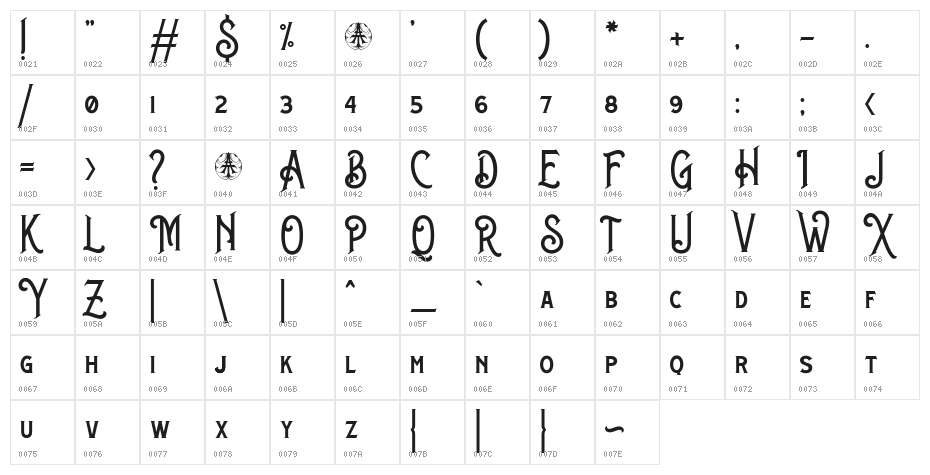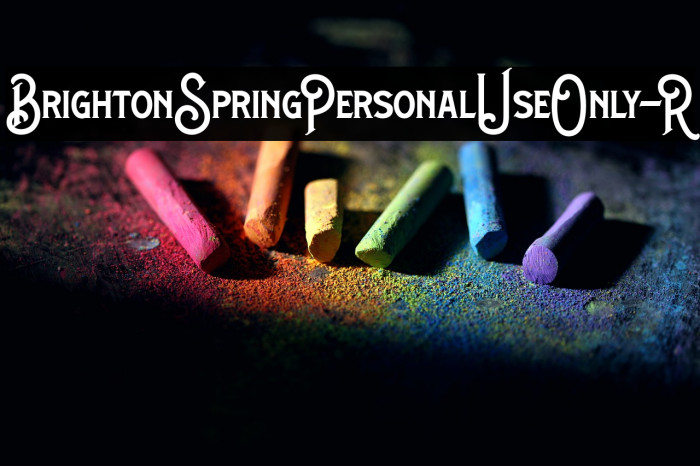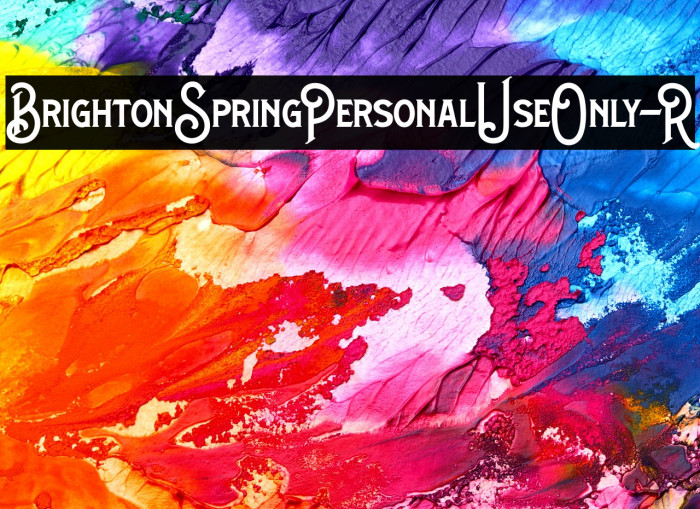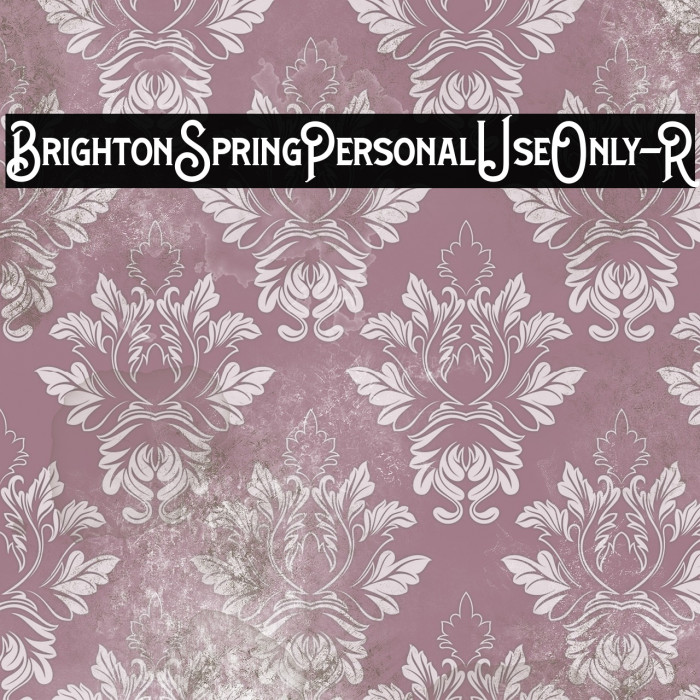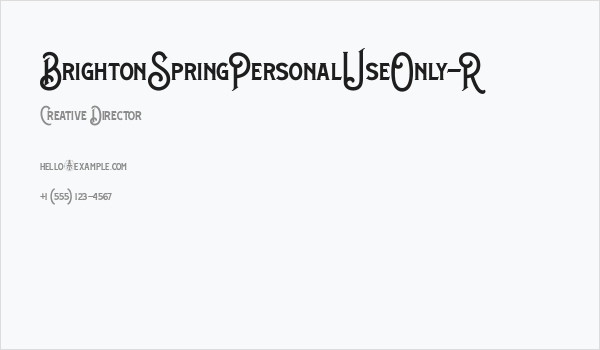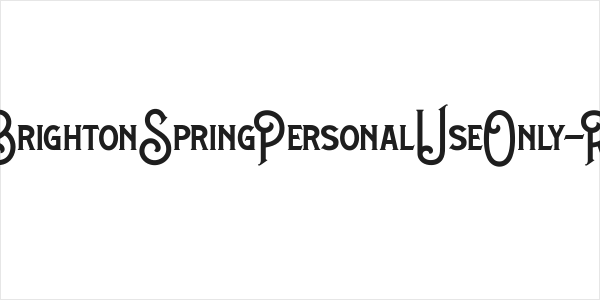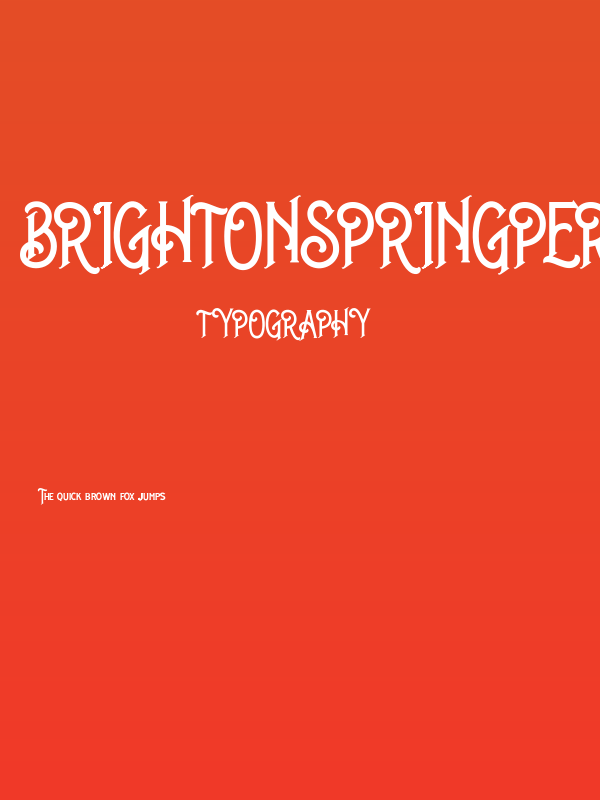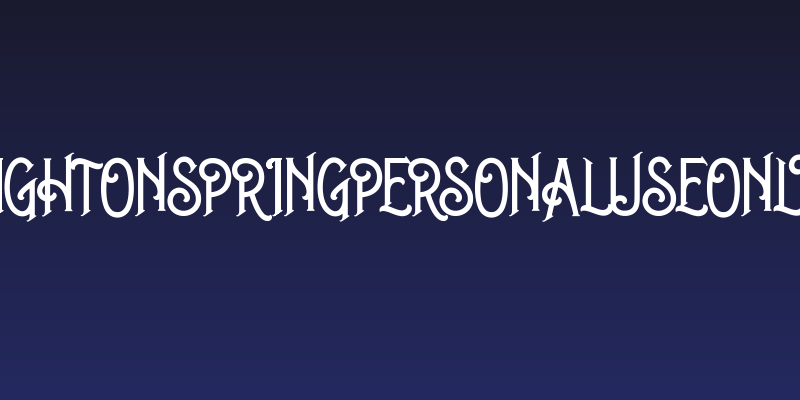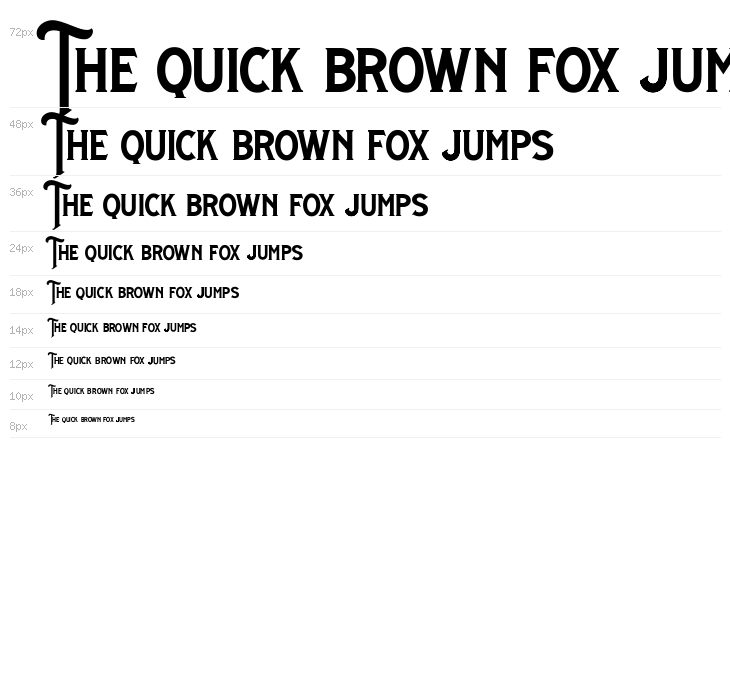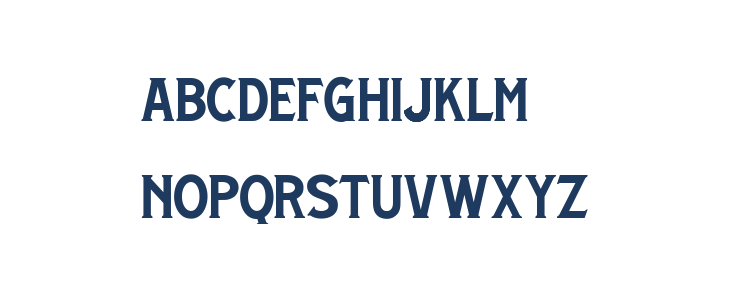
BrightonSpringPersonalUseOnly-R Font
BrightonSpringPersonalUseOnly-R Description
This font features a unique blend of decorative and classic styles, with a distinct flair in its uppercase letters. The uppercase characters are adorned with elegant swirls and curves, giving them a sophisticated and artistic appearance. The lowercase letters maintain a more traditional serif style, providing a balanced contrast to the ornate uppercase. The numerals are bold and clear, ensuring readability while maintaining the overall aesthetic. Special characters are creatively designed, adding to the font's decorative appeal. This font is ideal for projects that require a touch of elegance and creativity, such as invitations, branding, and artistic designs.
| Use Case | Headlines, Logos, Artistic designs |
| Proposed Projects | Ideal for invitations, branding, artistic designs, and decorative projects. |